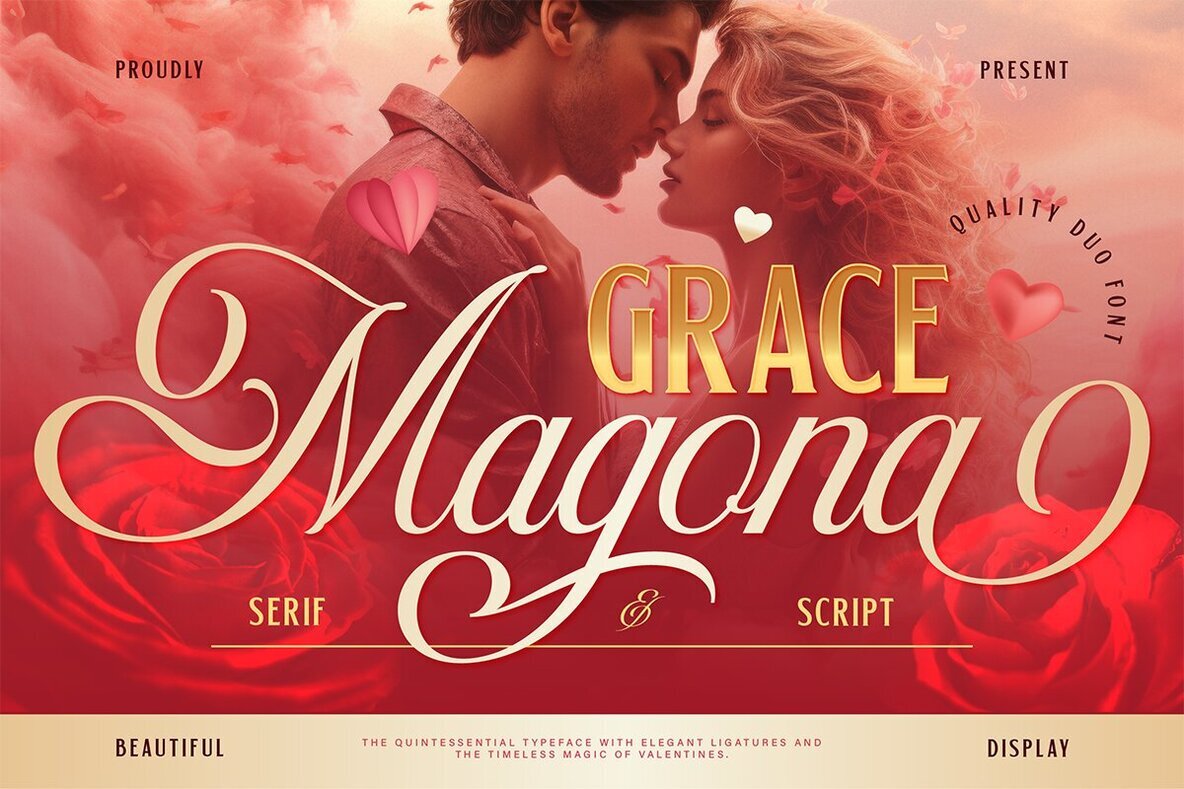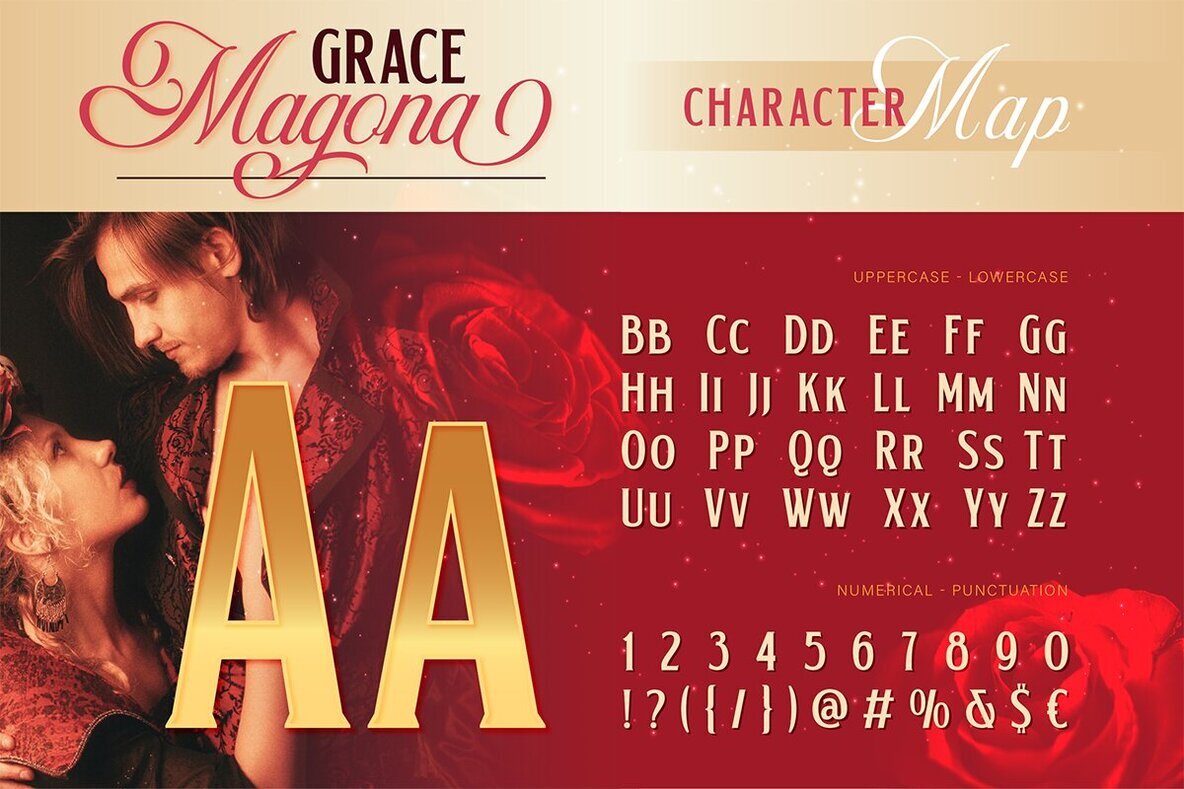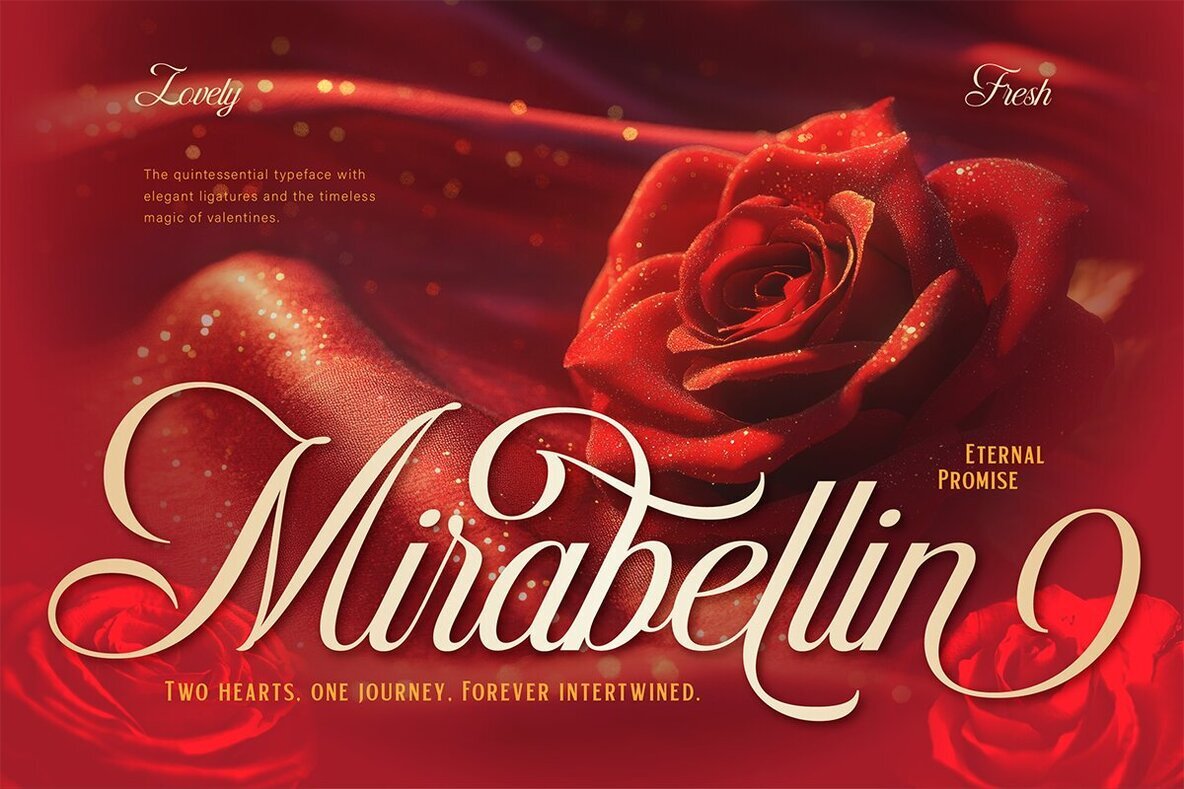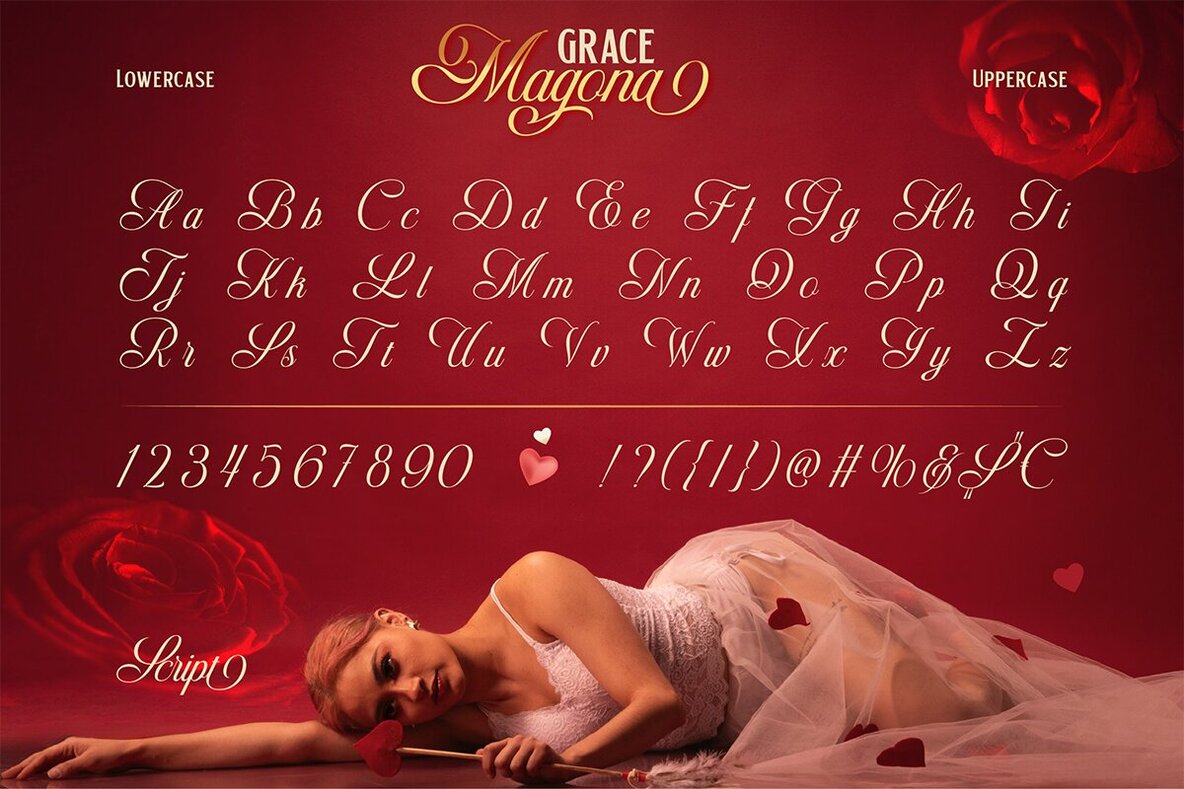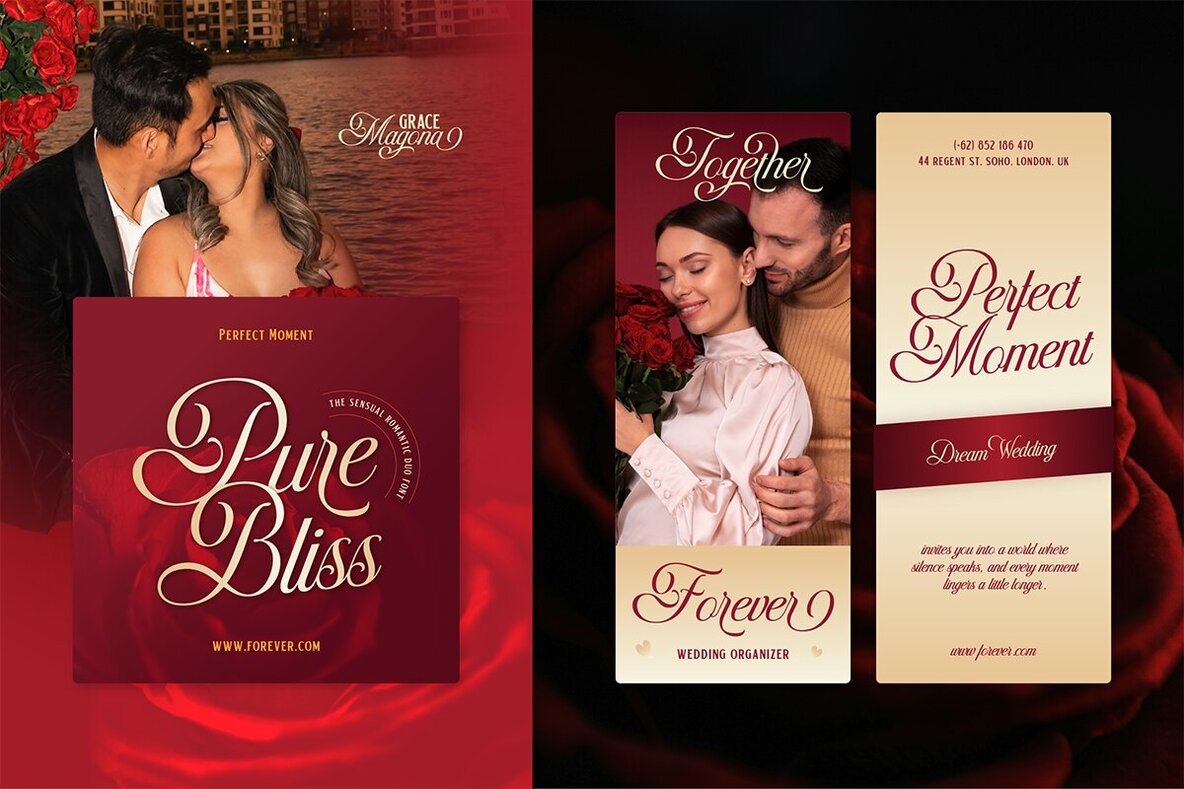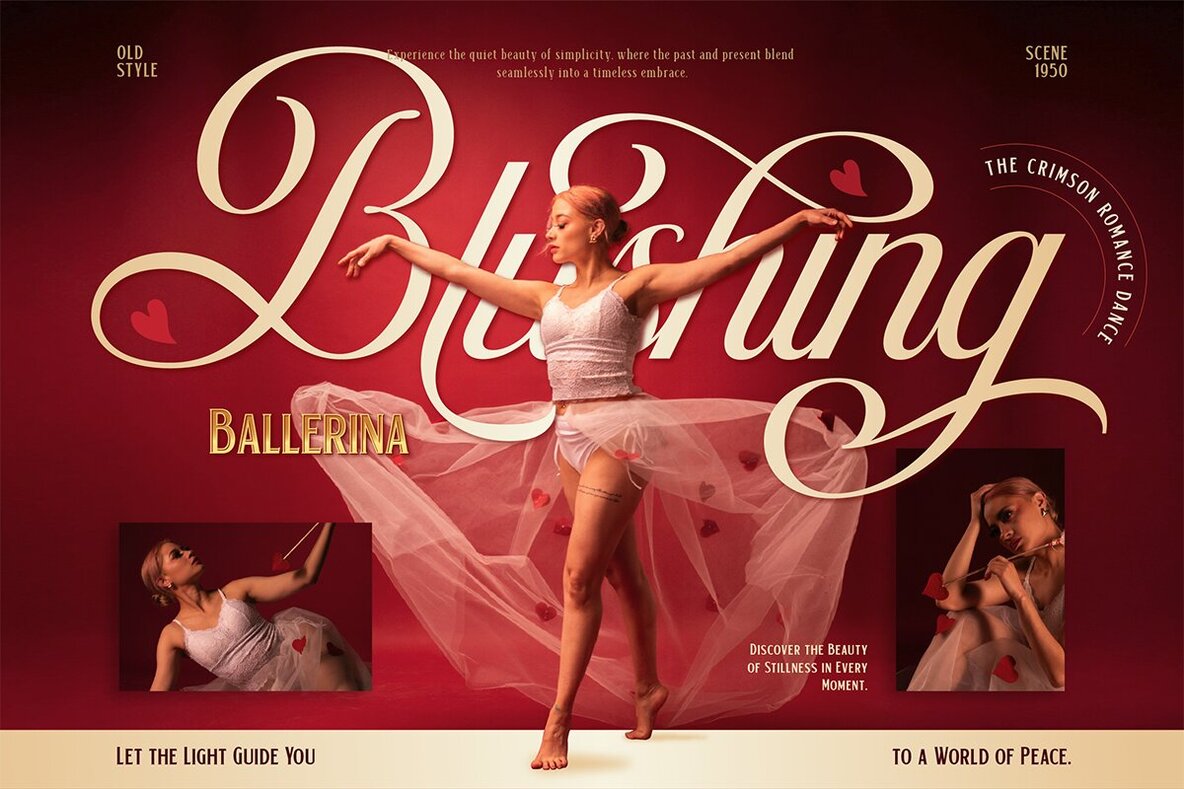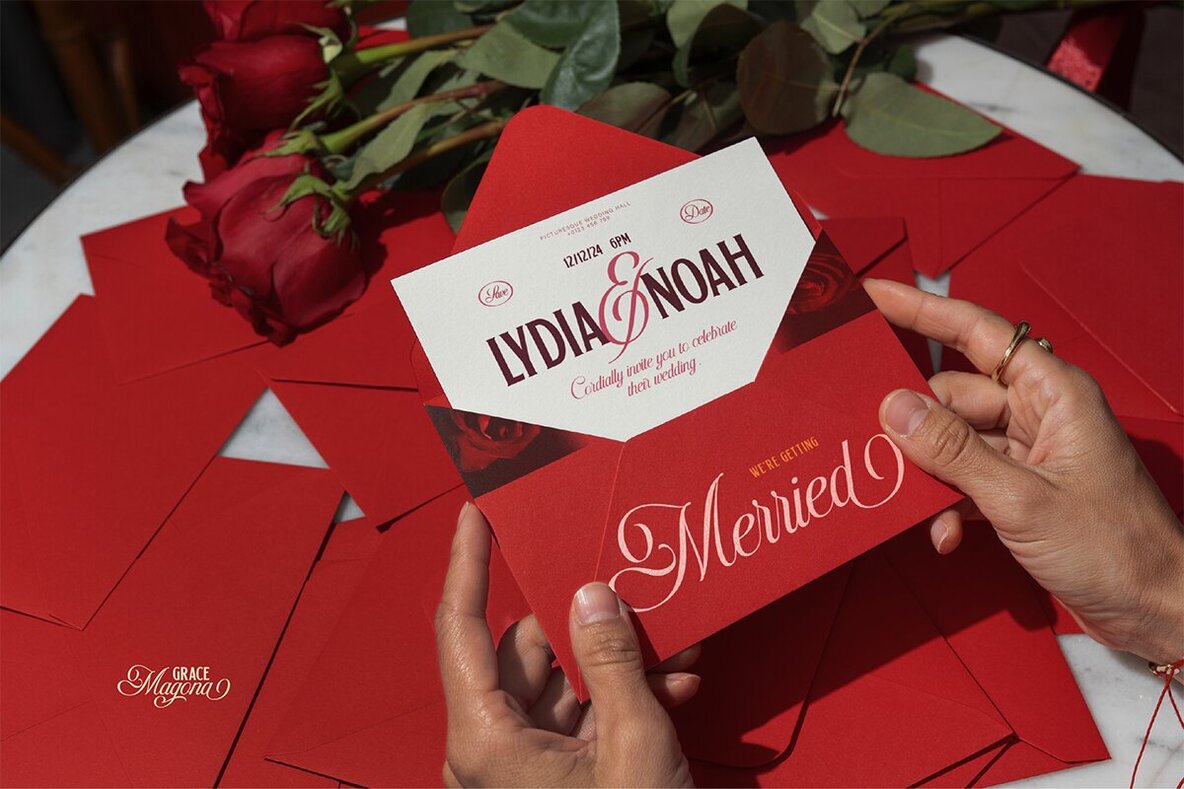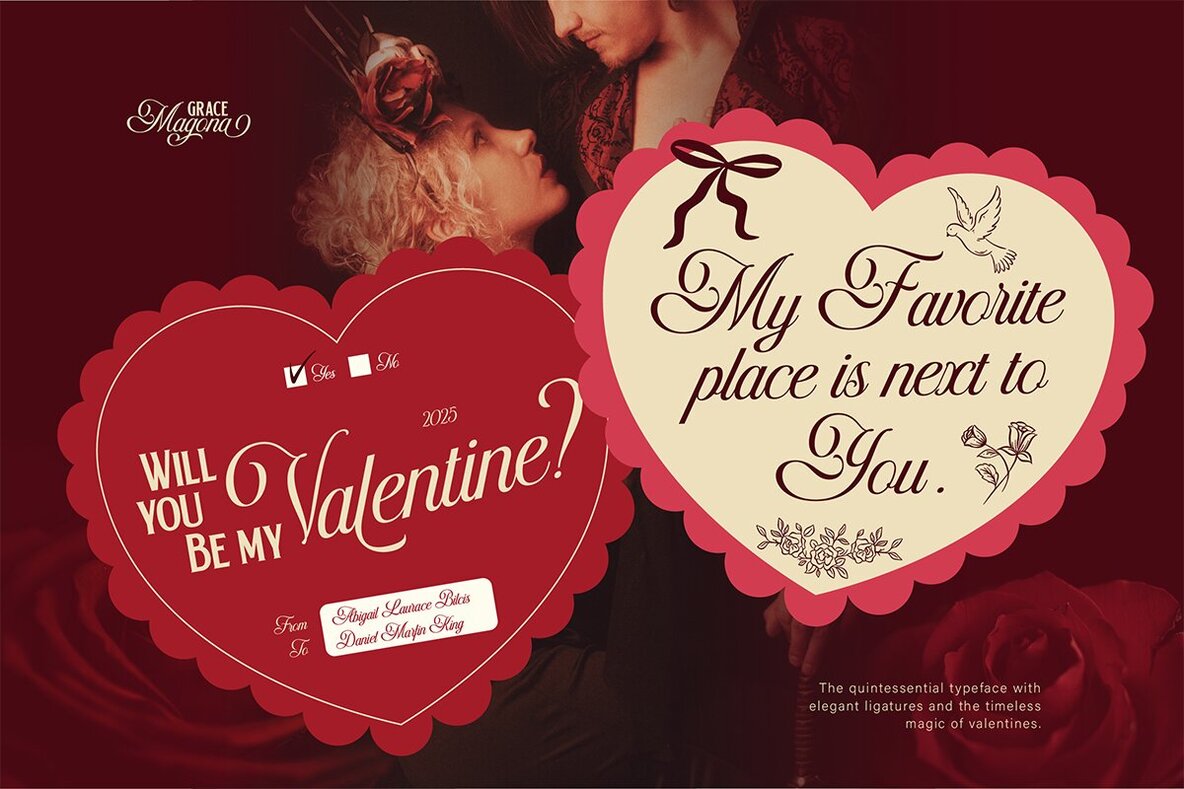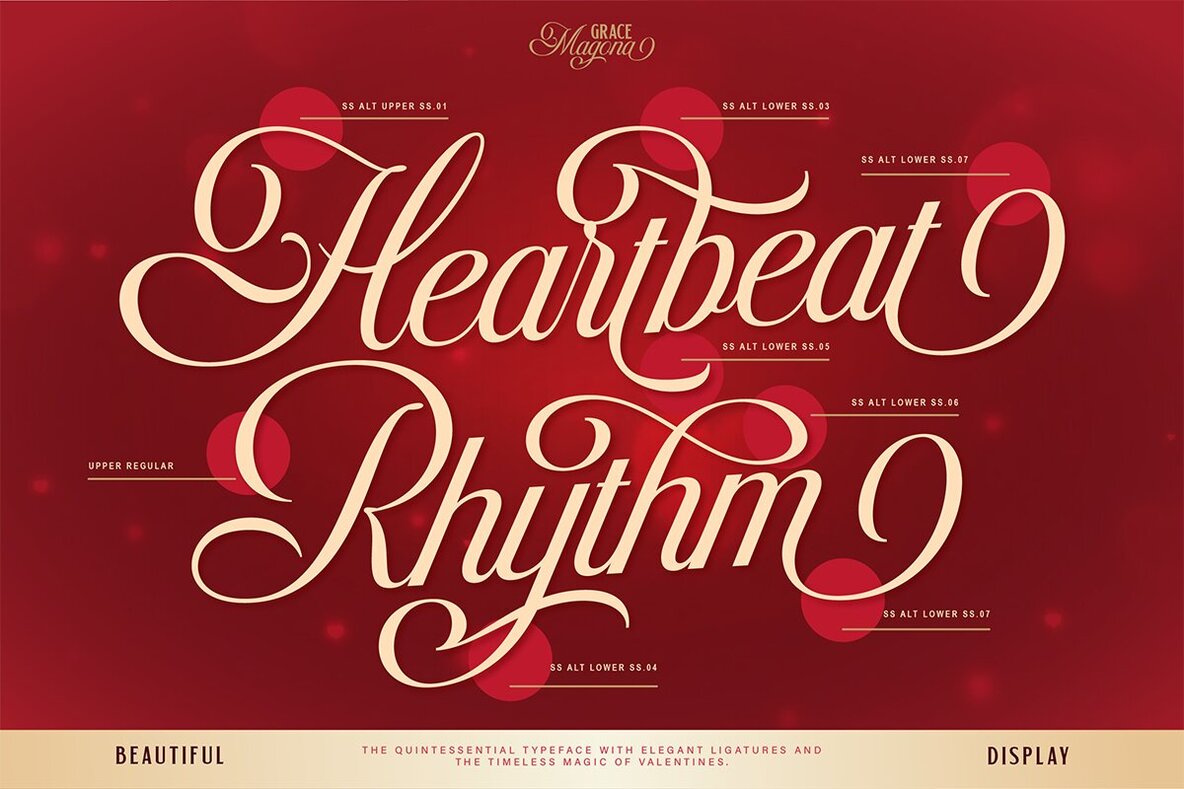
Grace Magona Font
Grace Magona Regular
Grace Magona Script
Grace Magona blends sensual curves with elegant sophistication, combining a bold serif with a soft, flowing script. The serif style brings confidence and classic appeal, while the script features silky strokes and evocative movement. Together, they create a warm, intimate atmosphere, ideal for romantic themes and refined branding. This duo font is crafted for beauty branding, wedding invitations, perfume packaging, and editorial layouts. Its balance of classic and alluring styles allows your words to leave a lasting impression, lending subtle warmth and timeless grace to each design.Grace Magona Romantic Duo Font